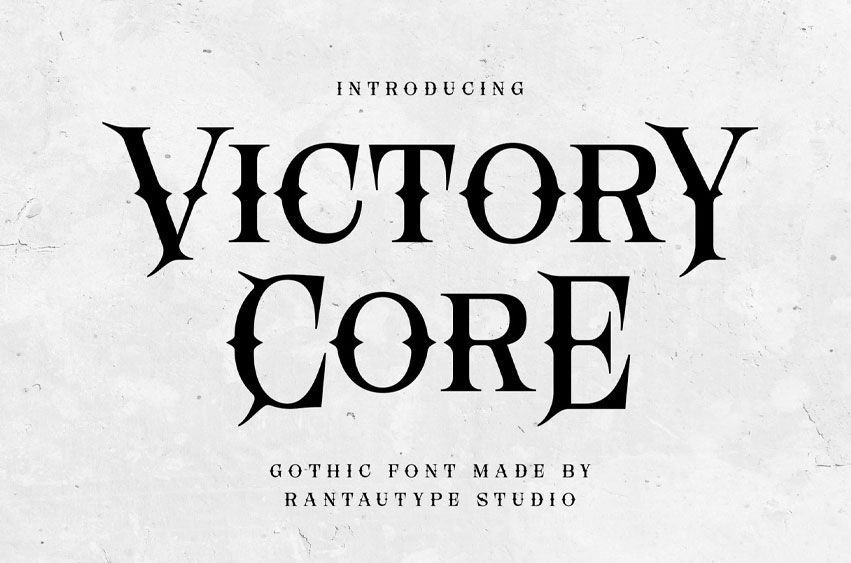
Victory Core Font
Victory Core Font is display font captures the essence of drama, mystery and rocker vibes.
Victory Core is a perfectly choice for any creative endeavor, creating, modern, lifestyle design such as logotype, title, cover, branding, display and magazine, social media posts, advertisements, printed quotes, product packaging, corporate brand, product designs, labels, photography, watermarks, special events and any other project with gothic touch.